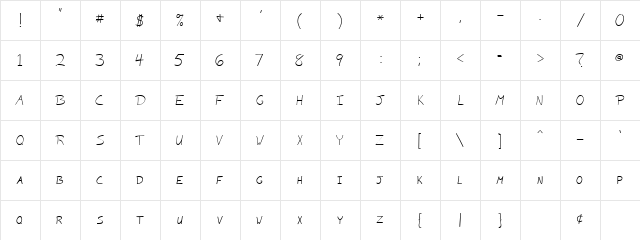
CrazyBobScriptSSi Regular
Design Context for CrazyBobScriptSSi Typeface
CrazyBobScriptSSi flows with the natural rhythm of handwritten lettering, making it ideal for designs that call for warmth and personal expression.
Font Pairing: Combine CrazyBobScriptSSi with a simple geometric sans for maximum contrast — the tension between flowing curves and clean structure is a classic typographic pairing.
Pro Tip: Pair CrazyBobScriptSSi with a clean sans-serif for supporting text. The contrast between fluid script and geometric structure creates an elegant typographic hierarchy.